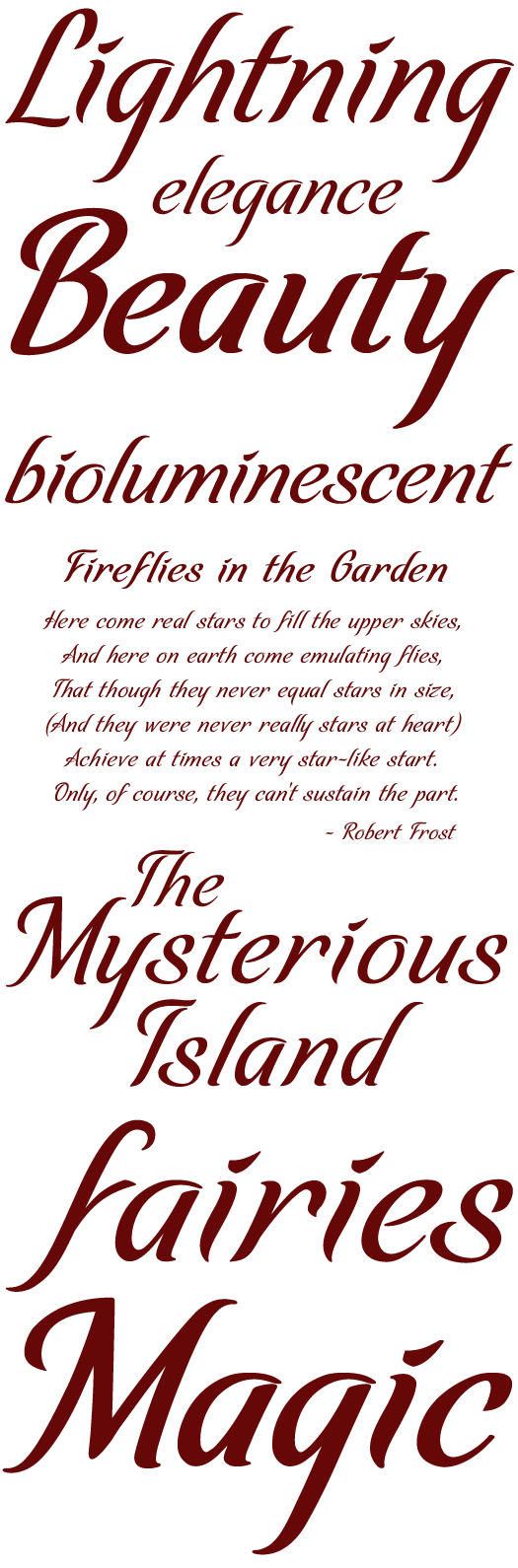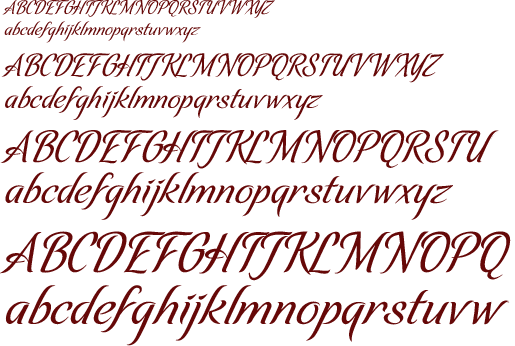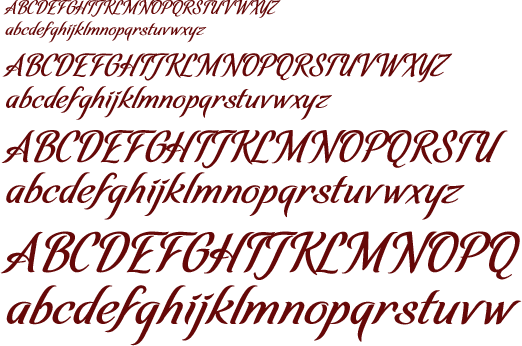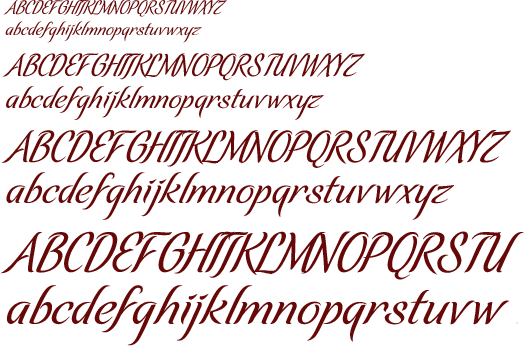
Firefly™ by David Occhino
A elegant and etherial calligraphic script typeface with flowing lines and understated grace.
Character Set
Firefly has a set of 240 glyphs:
• Latin A-Z, a-z • Complete punctuation • International characters • Mathematical symbols
Samples
• Firefly™ Regular
• Firefly™ Alternate
• Firefly™ Bold
• Firefly™ Bold Alternate
Additional Samples
• The following type specimens use all four styles of the Firefly™ typeface family.
Firefly™ was designed by artist David Occhino. ©2011 by David Occhino Design.